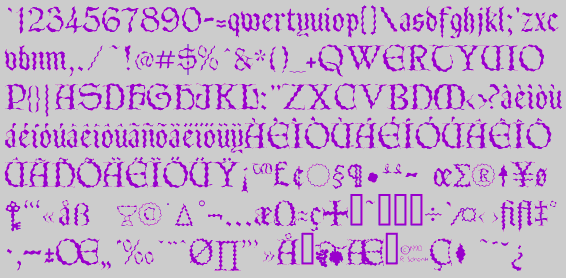
A number of the odder fonts on the No-Hype Type CD were created by distorting my more standard fonts with the font distortion program Font-O-Matic. The wave effect in Font-O-Matic gave interesting results on several of the typefaces I fed it. I found the results I liked best were those with a wave that gave lots of bumps and almost met in the middle of the letter. Some of the results looked pretty good directly from Font-O-Matic, but others required a considerable amount of hand tuning to look respectable.
LettergicalWave is an example of a loose-wave pattern, this one put on the medieval-looking Lettergical.